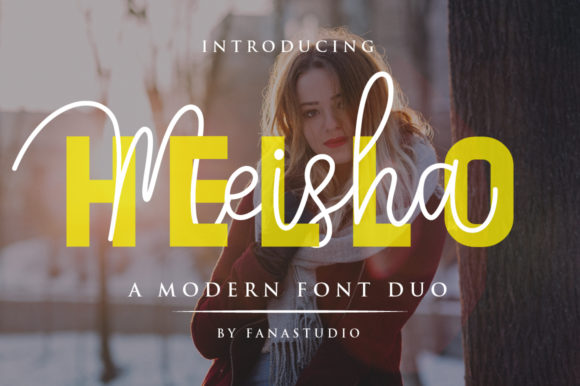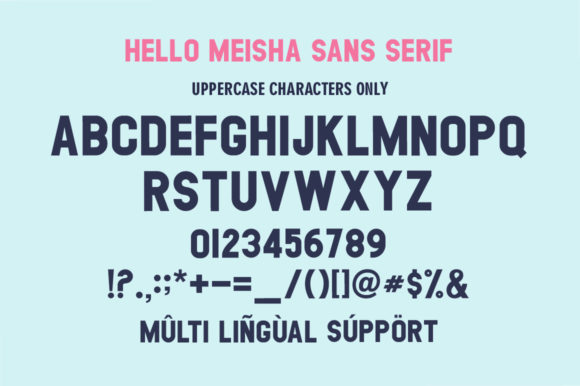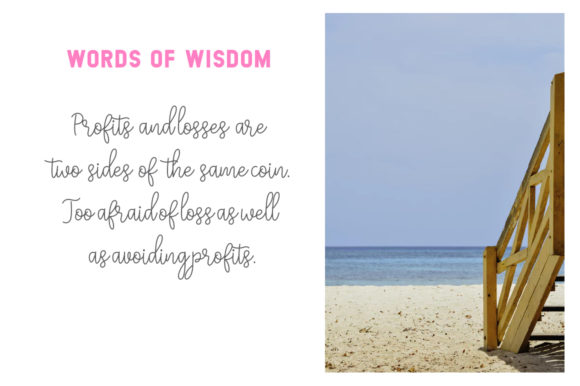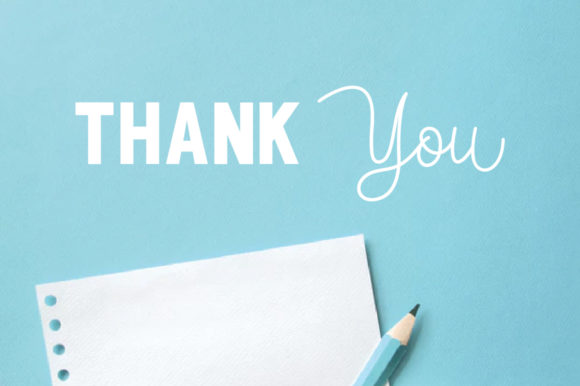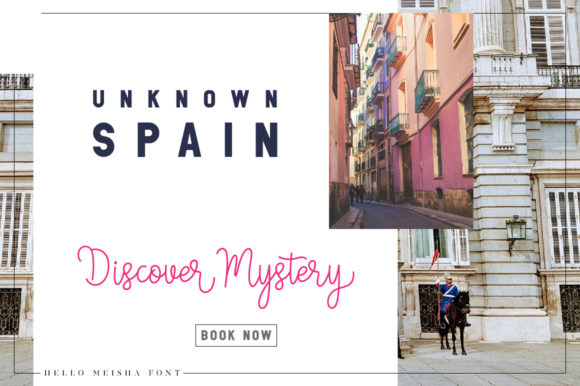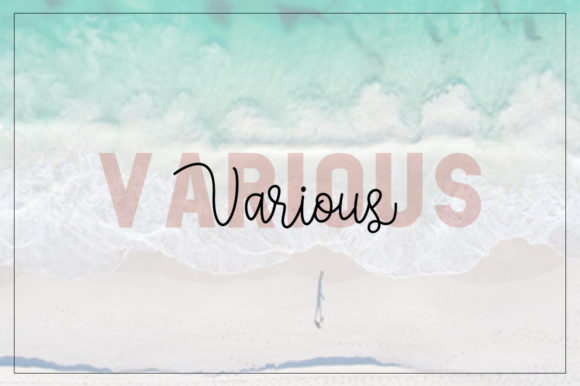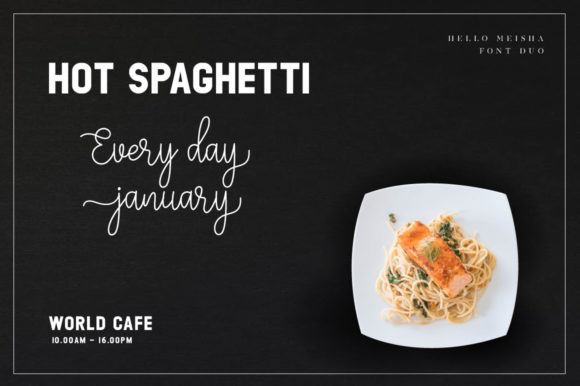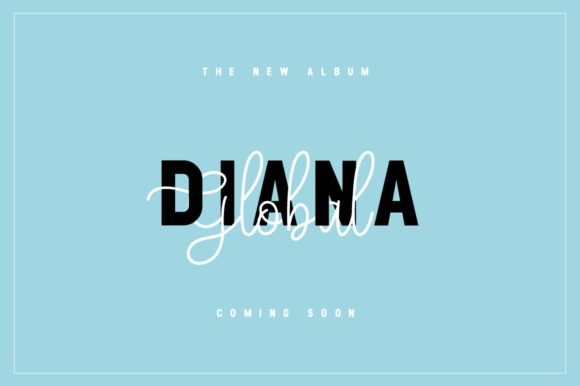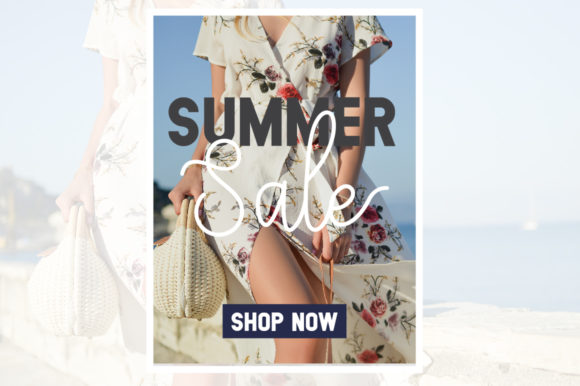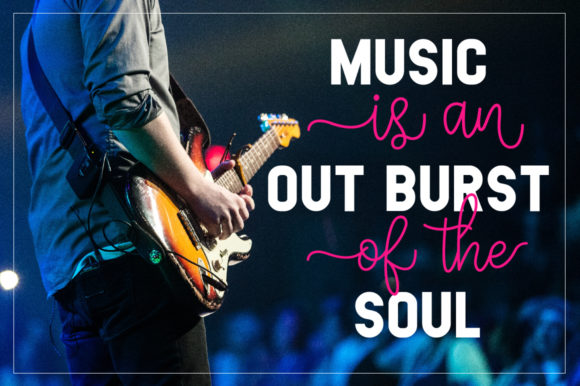
Meisha Duo Font
About Meisha Duo Font
The Meisha is an unique font duo. It comes in an elegant script version and a bold and striking serif version, which can be combined perfectly but are also great as strong stand alone’s.
The Meisha is perfect for invitations, stationery, wedding designs, social media posts, advertisements, product packaging, product designs, and every other design that needs an handwritten feel.